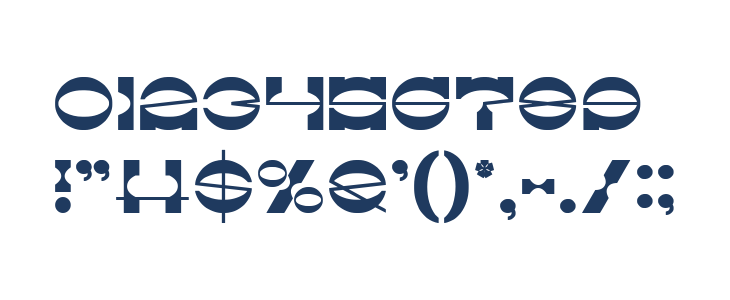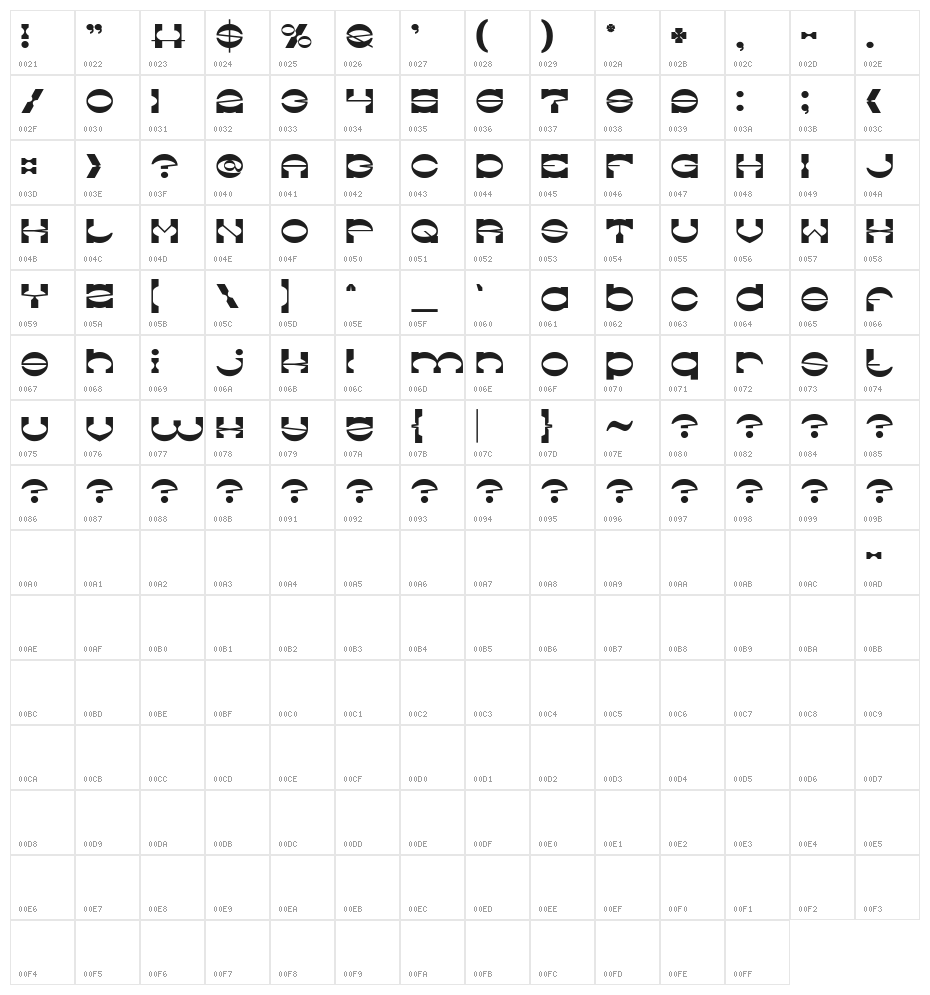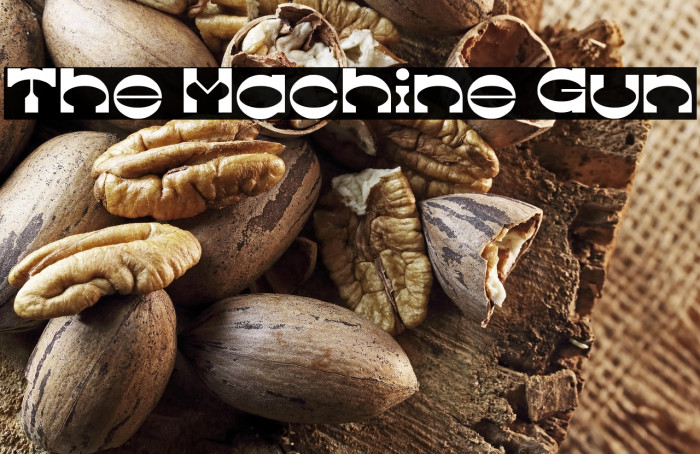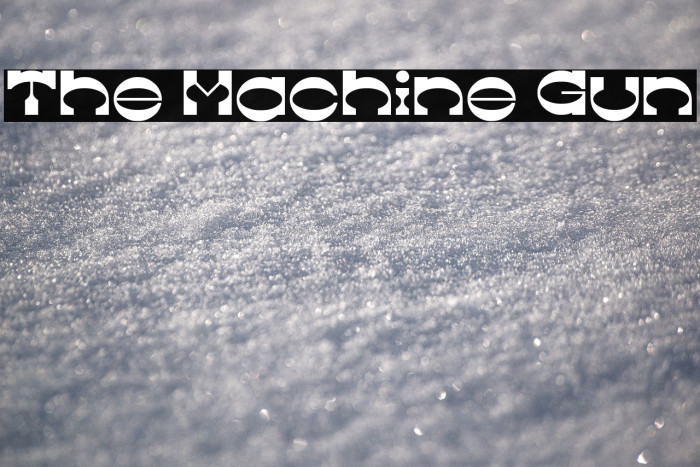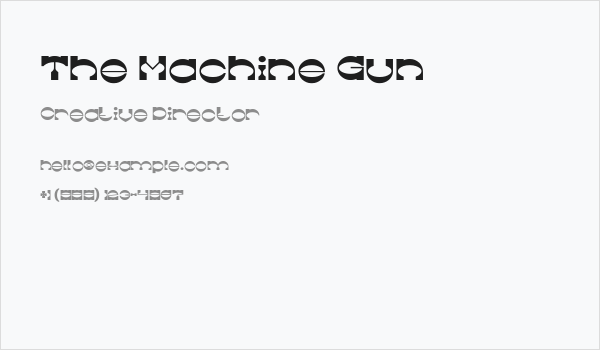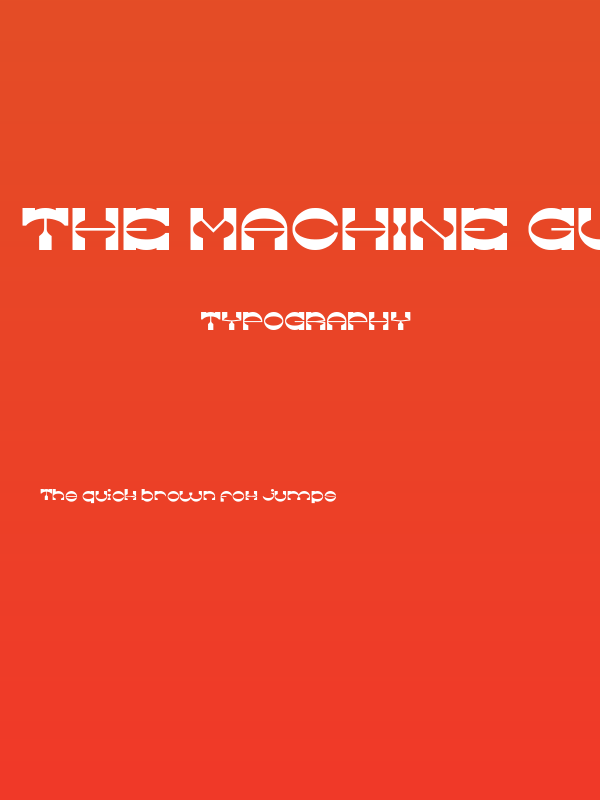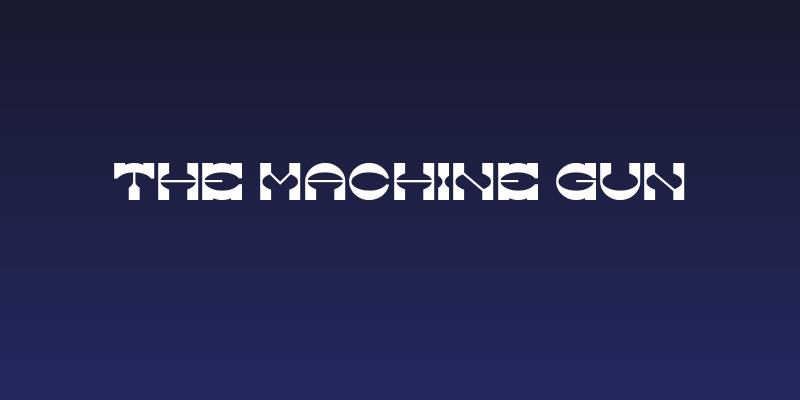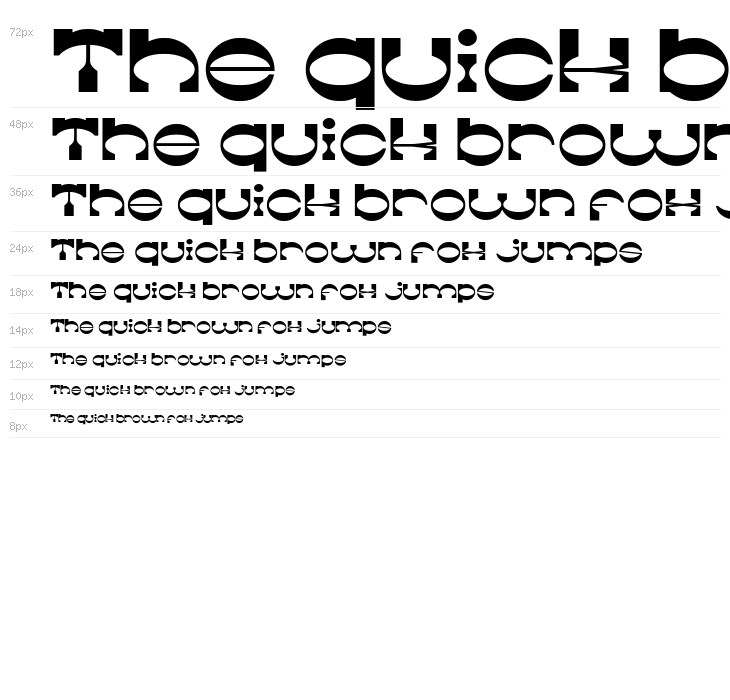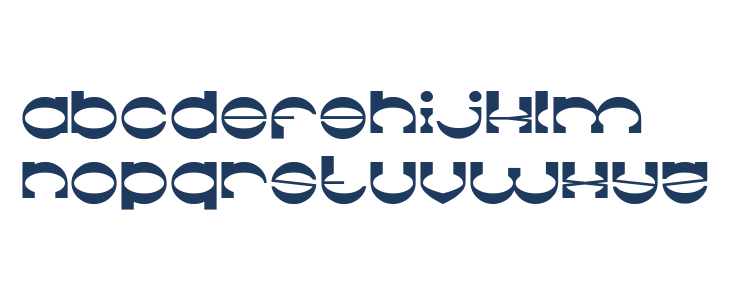
The Machine Gun Font
The Machine Gun Description
This font features a bold and futuristic design with geometric elements that create a distinct and modern appearance. The characters are constructed with a combination of sharp angles and circular shapes, giving it a mechanical and industrial feel. The uppercase and lowercase letters maintain a consistent style, with unique cutouts and lines that add to its edgy aesthetic. Numbers and special characters follow the same design principles, ensuring a cohesive look across all glyphs. This font is ideal for projects that require a strong, impactful visual presence.
| Overall Style | Futuristic |
| Use Case | Logos, Headlines, Posters |
| Proposed Projects | Ideal for technology branding, sci-fi themed projects, video game titles, and futuristic posters. |